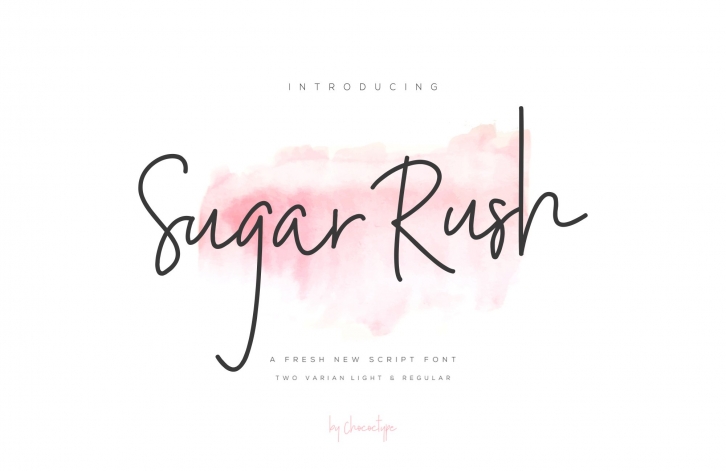
Sugar Rush Script FONT Download
Sugar Rush Script Font Download
Say hello to Sugar Rush - A fashionable and super- chilled new handwriting font script. Sugar Rush font was created to look as close to a natural handwritten script as possible.